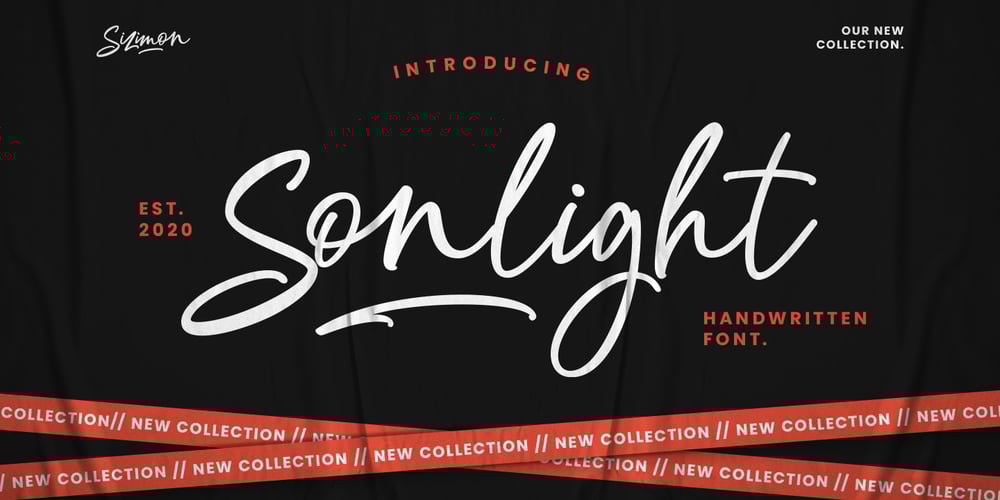
Sonlight Font Family was designed by Faisal Tanjung and published by sizimon. Sonlight contains 1 styles and family package options. Sonlight Script is hand written fonts set . Very cool for logos, name tag, handwritten quotes, product packaging, merchandise, social media & greeting cards. And very easy to make design t-shirts and other products. Very save time in making the design of a product. It contains a full set of lower & uppercase letters, a large range of punctuation, numerals, and multilingual support.Sonlight Include : Uppercase, lowercase, numeral, punctuation & Symbol Multilingual support 160 Standard Ligatures and Discretionary Ligatures PUA Encoded Characters Fully accessible without additional design software.